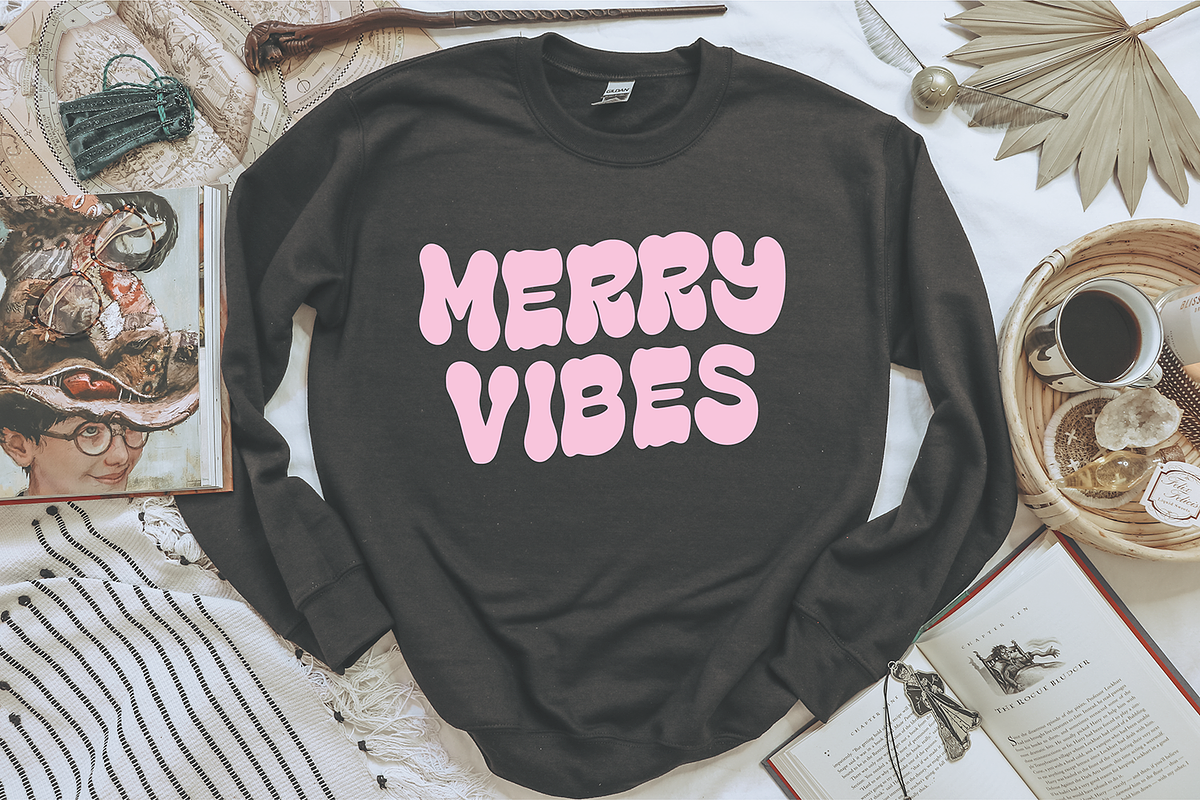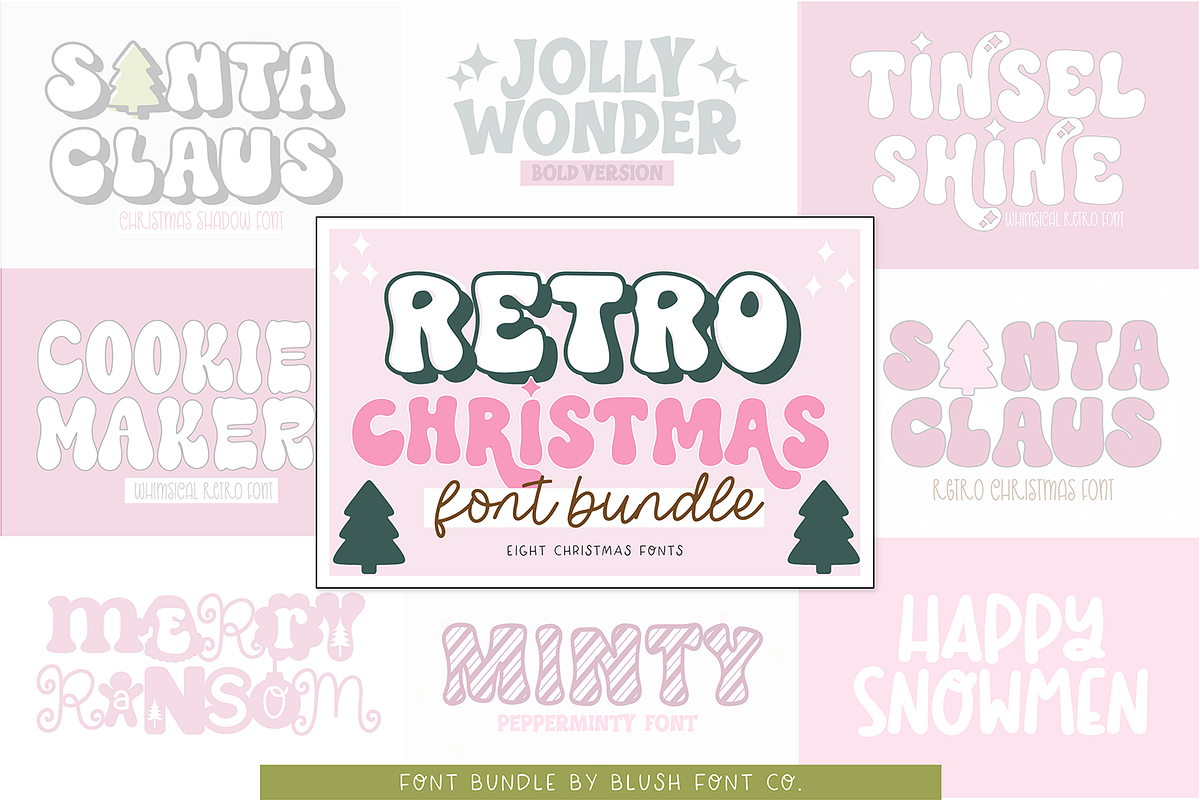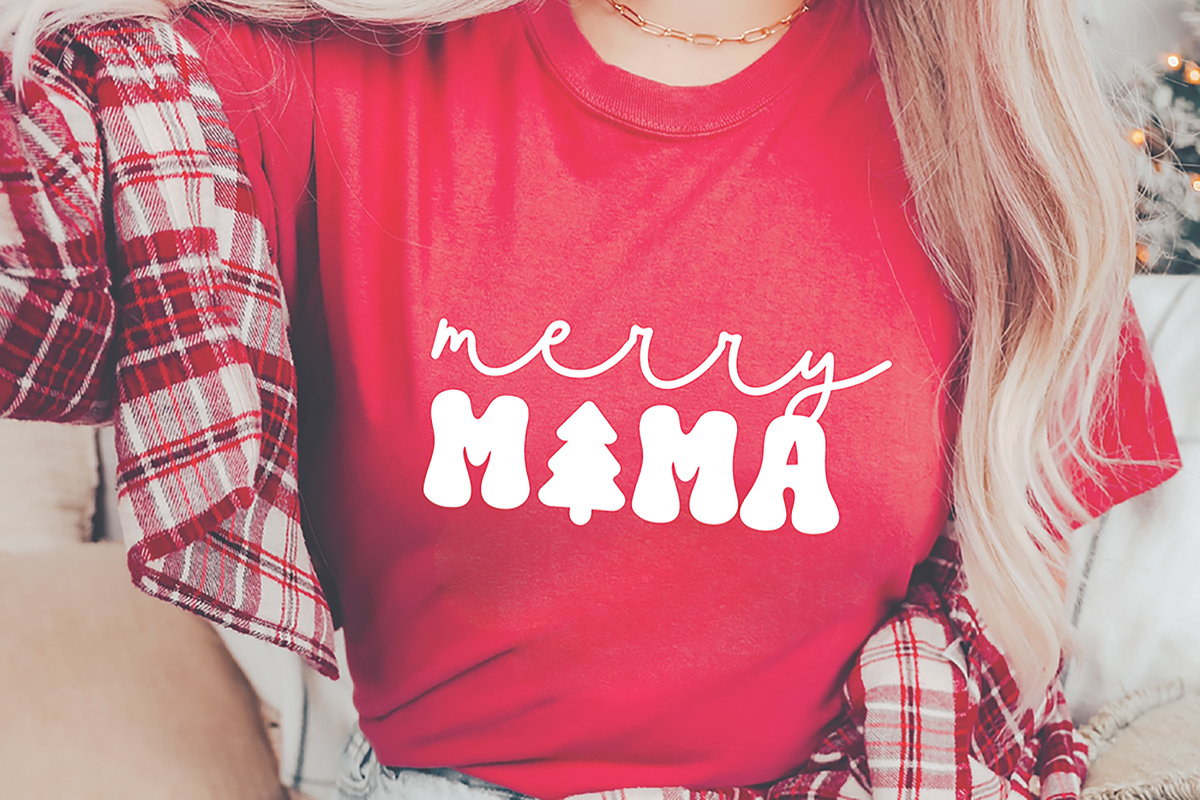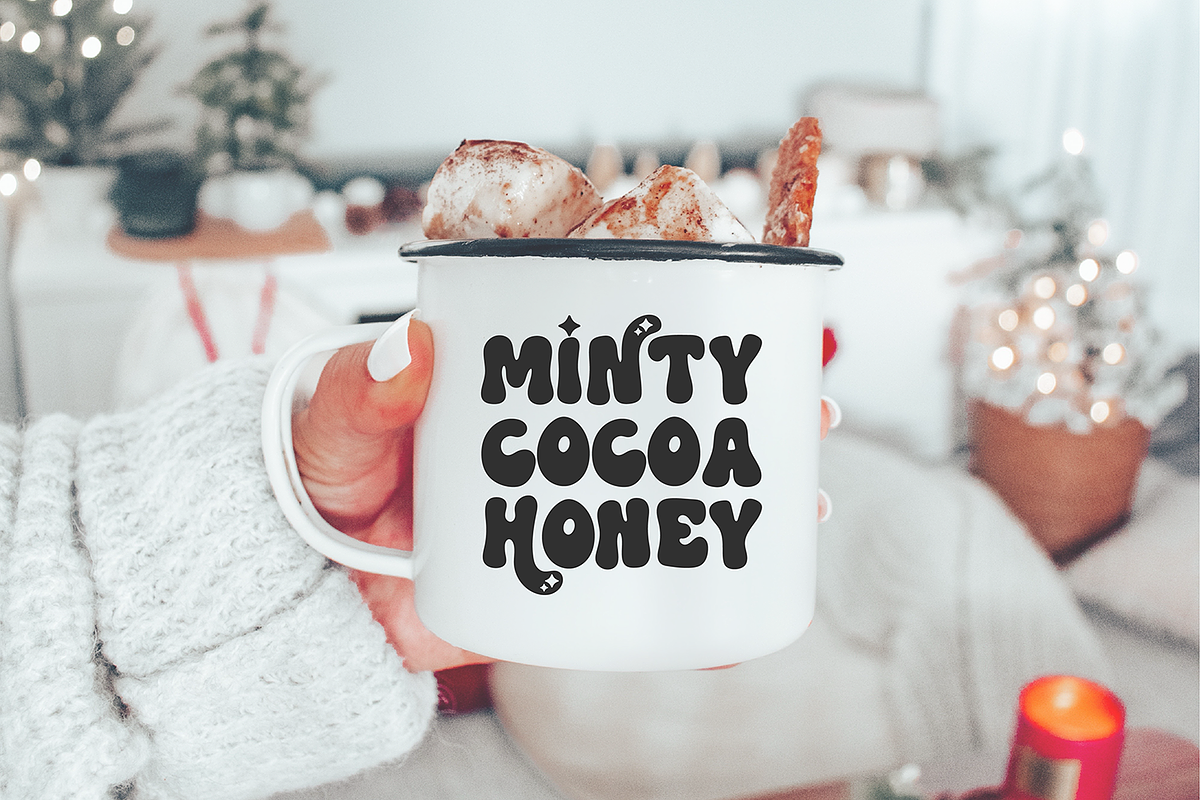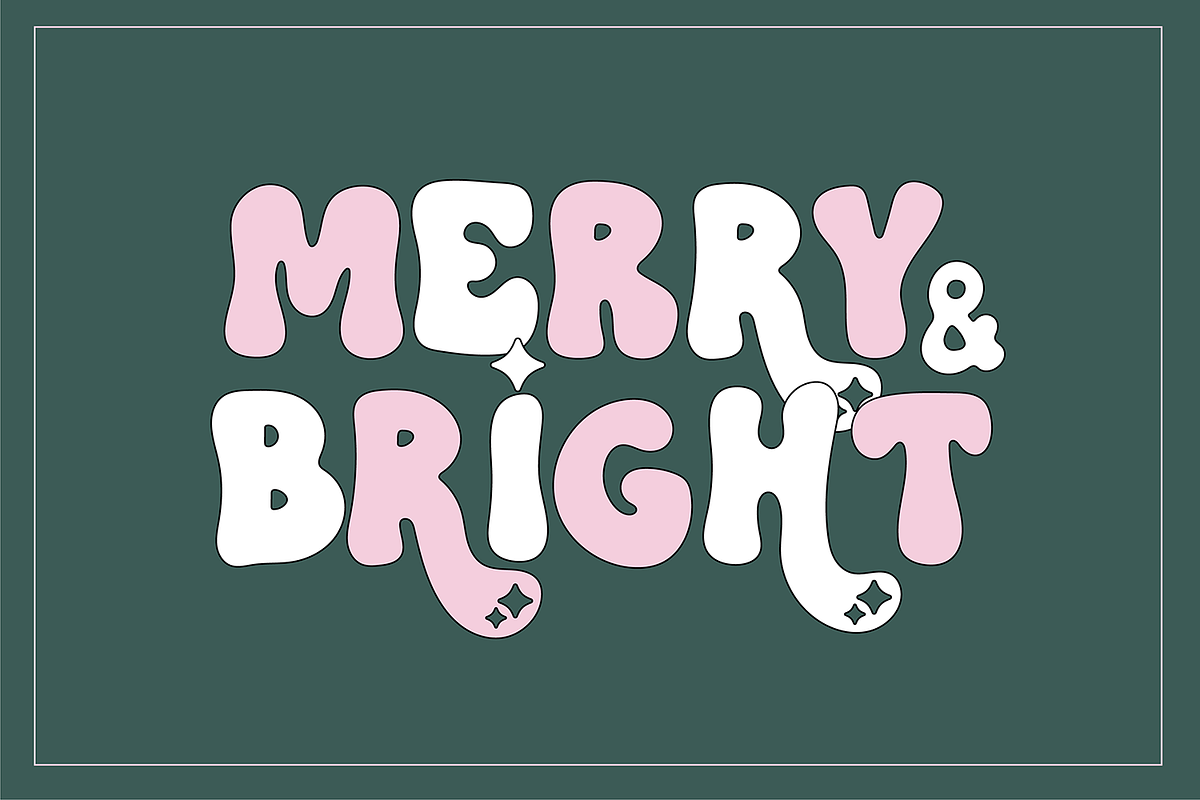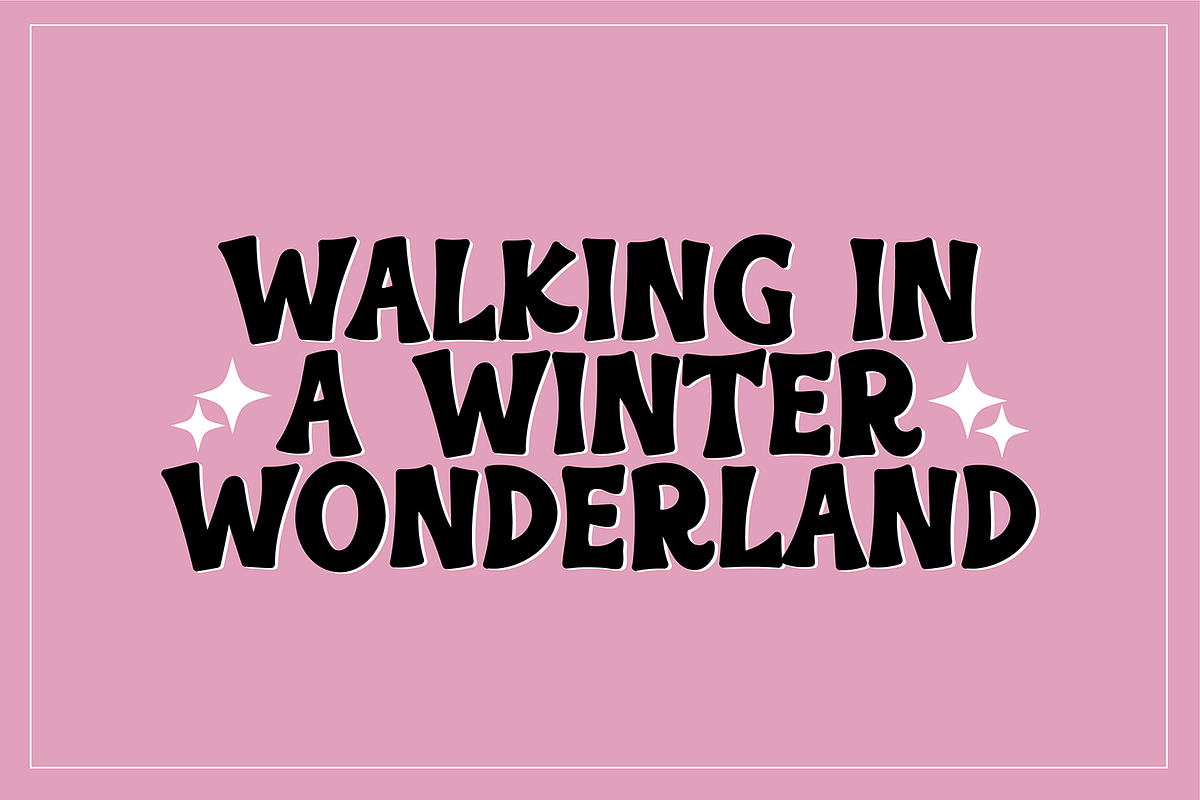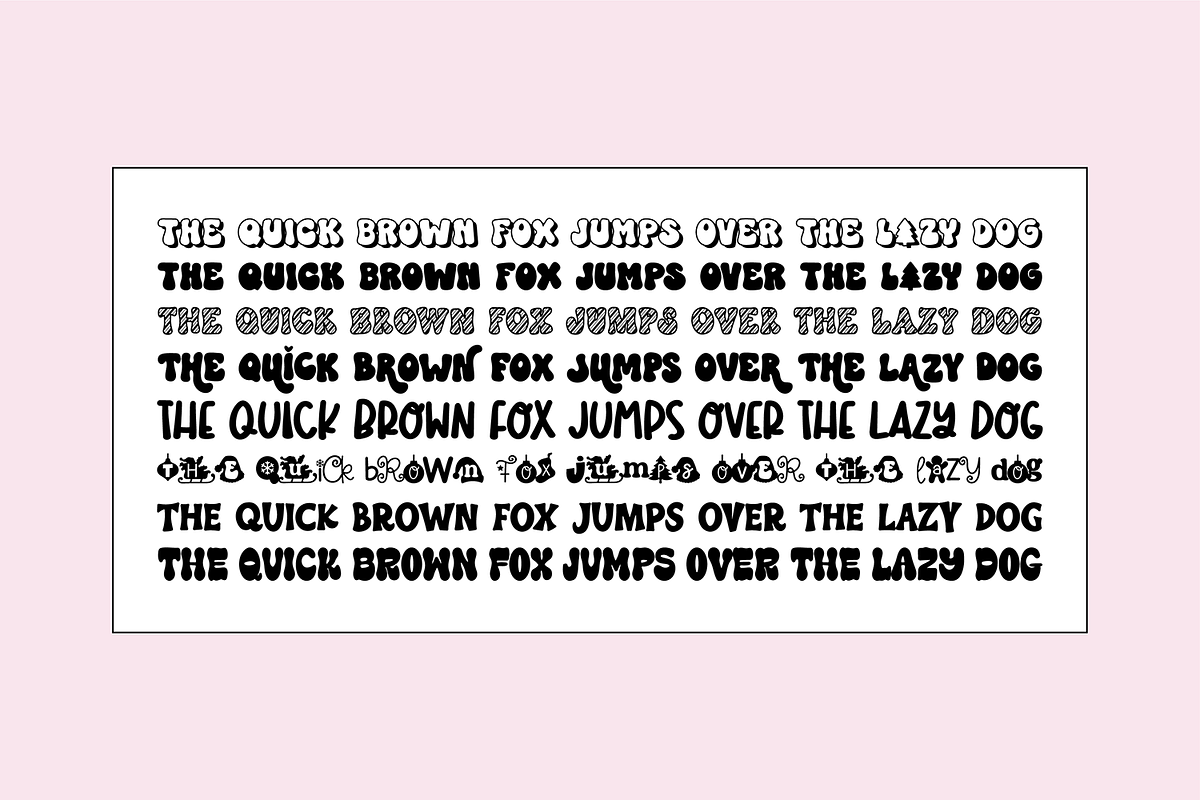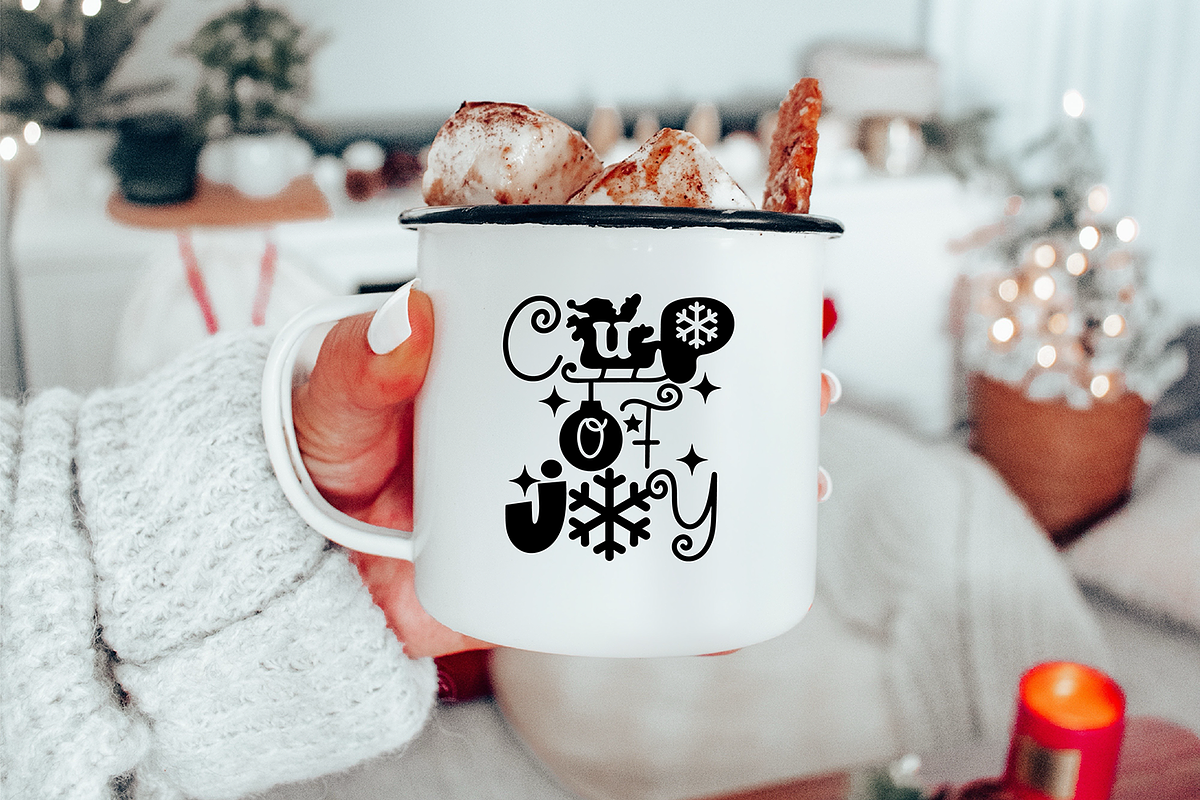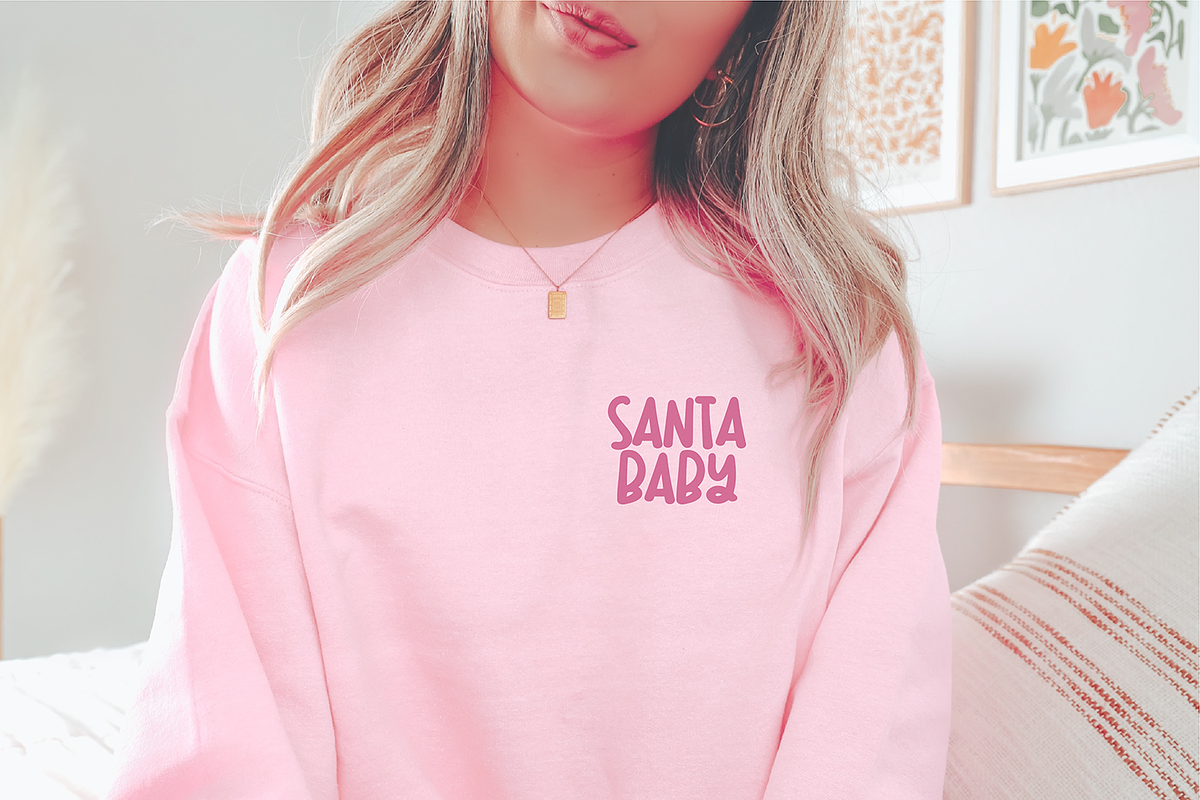
RETRO CHRISTMAS FONT BUNDLE V1
These adorable retro Christmas fonts are going to be perfect for all of your cute Christmas crafts, like Christmas decor, sweaters, and party invitations! The 8 fonts included are:
TINSEL SHINE JOLLY WONDER BOLD HAPPY SNOWMEN SANTA CLAUS SOLID SANTA CLAUS SHADOW COOKIE MAKER MINY MERRY RANSOM B&W